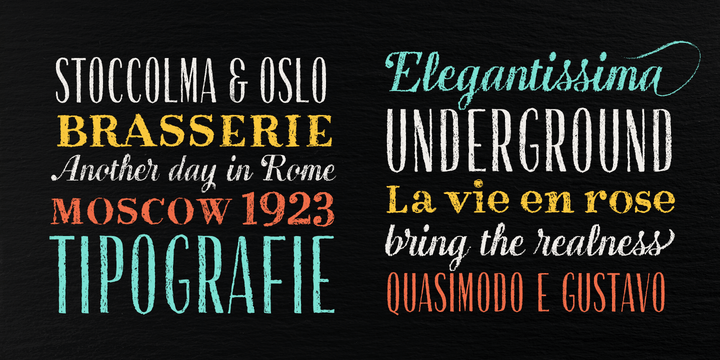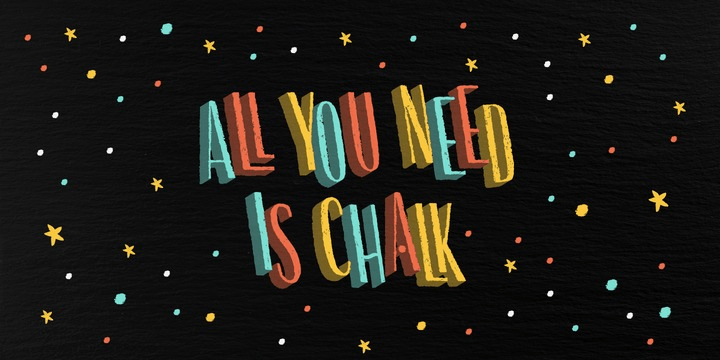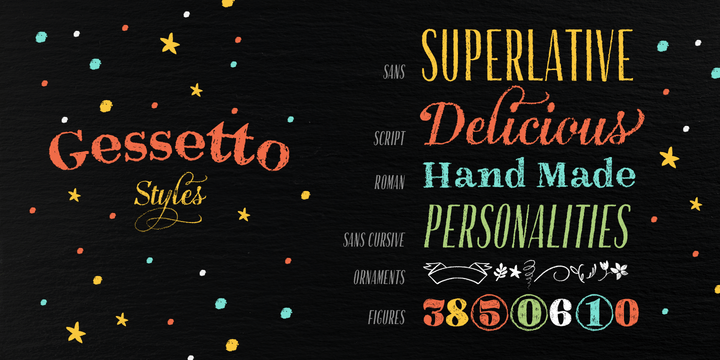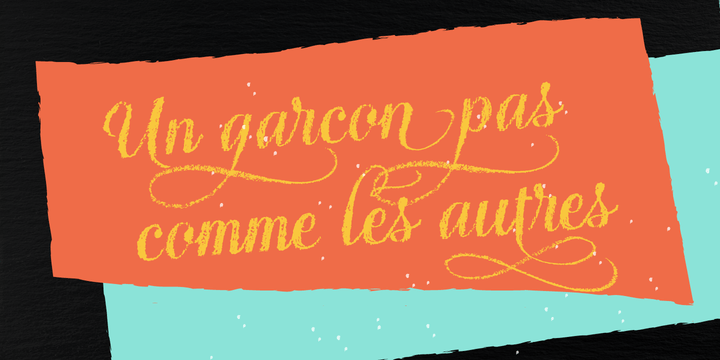
About Gessetto
Gessetto is an extensive chalk font family, containing script, sans, roman, figures and ornaments. One of the things most charming about chalkboard lettering is the variation; in both texture and style. Our goal was to achieve a real chalk effect using…